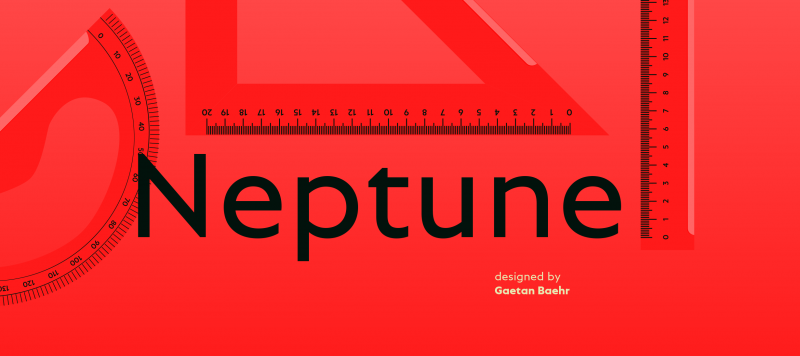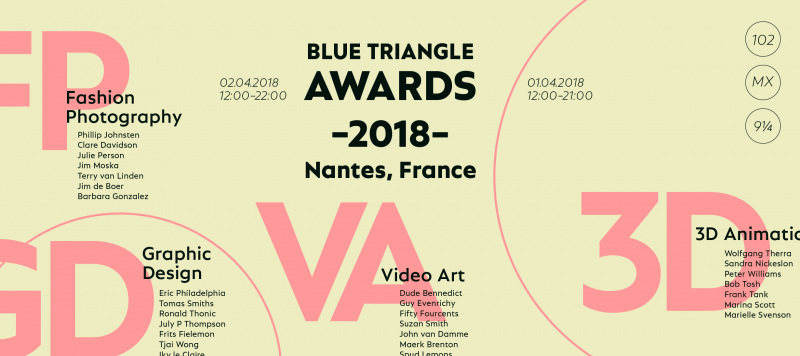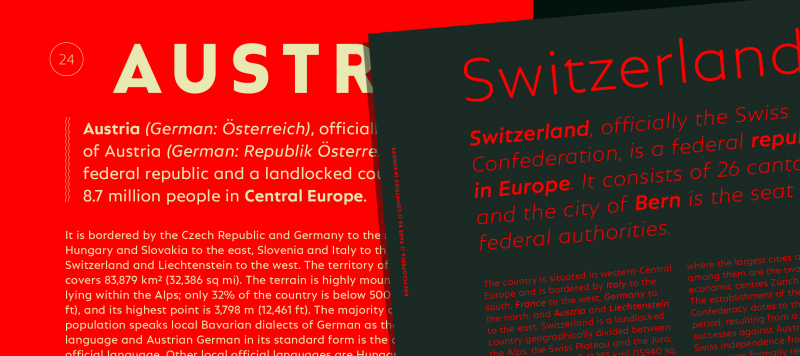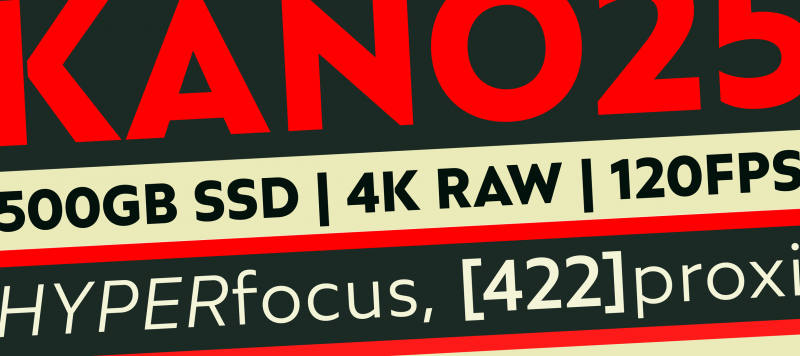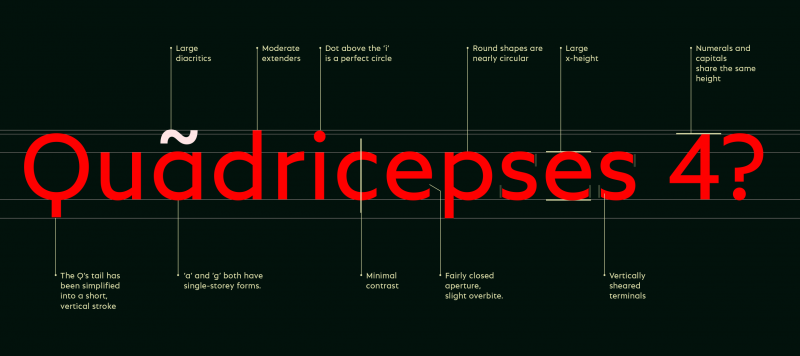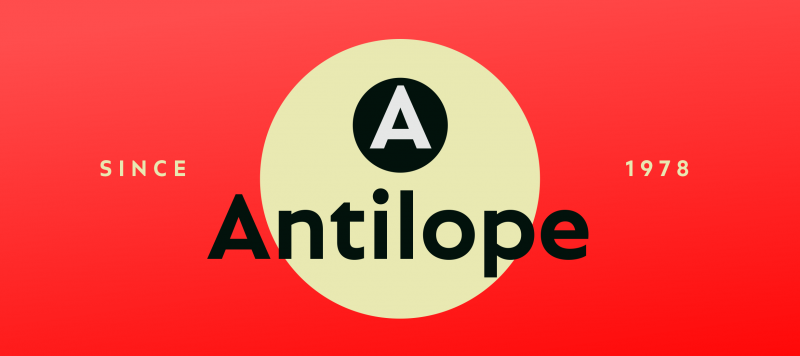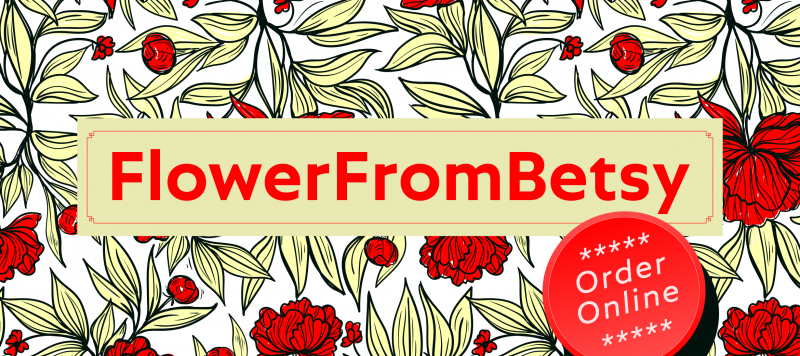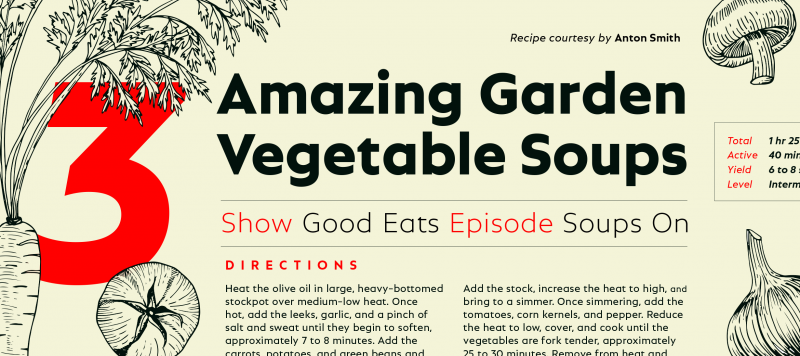
Neptune is a large family of geometric sans serif fonts. Its designer Gaetan Baehr has created 12 styles: six different weights, ranging from Extralight to Extrabold. Each has an upright and an oblique font on offer. Letters in all of Neptune’s weights are drawn with virtually mono-linear strokes. Its lowercase letters have a tall x-height, but still leave enough room for the fonts’ diacritical marks. These are actually quite large; they’ll always be noticed, even in small sizes. Neptune’s ‘a’ and ‘g’ both have single-storey forms. The dots on the ‘i’, ‘j’, and diacritics are round, as are the punctuation marks, too. Despite being a geometric sans, Neptune features letters that break away somewhat from what previous fonts in that style have offered. The Q’s tail has been simplified into a short, vertical stroke. The strokes on both the ‘S’ and the ‘s’ terminate in vertical cuts, instead of having horizontal or diagonal terminals. The lowercase ‘k’ and ‘t’ each have traits that come from our alphabet’s handwritten origins. These details give text set in Neptune a different feeling from other geometric sans serifs. Neptune is an excellent choice for both corporate design and editorial design projects, both because of its range of weights as well as its legibility in text.